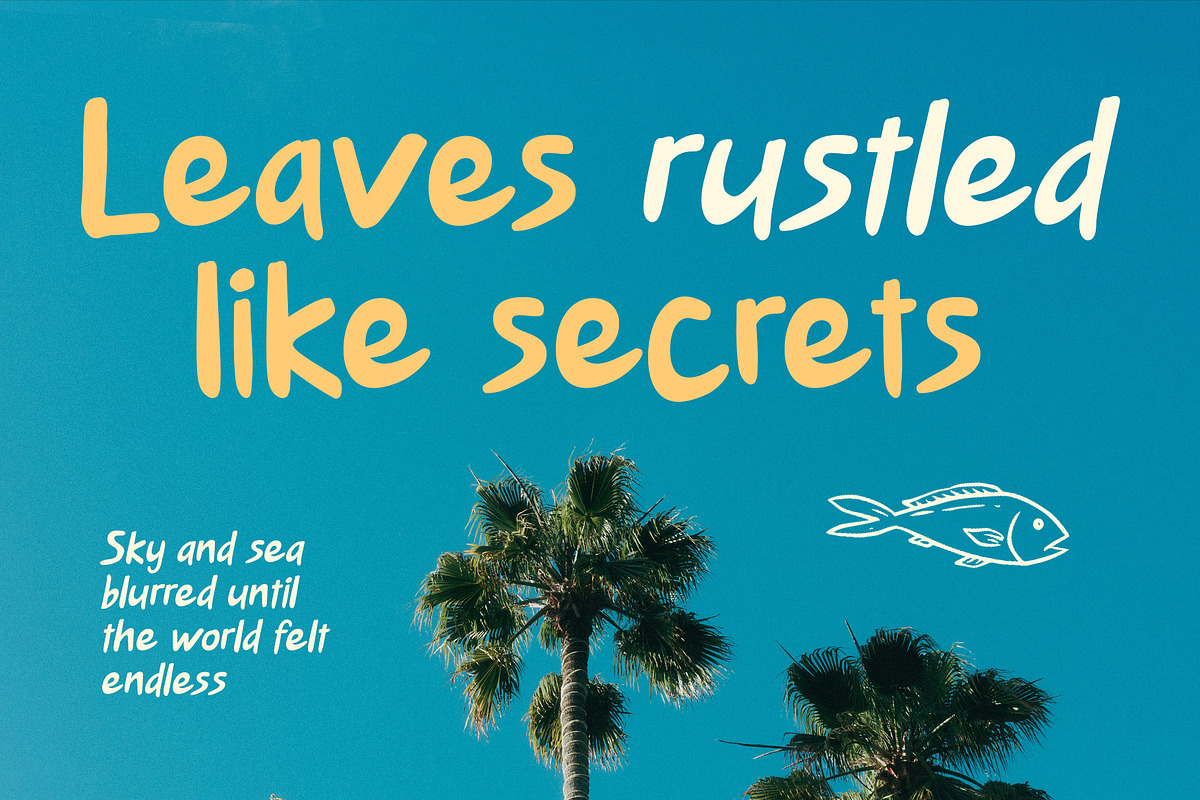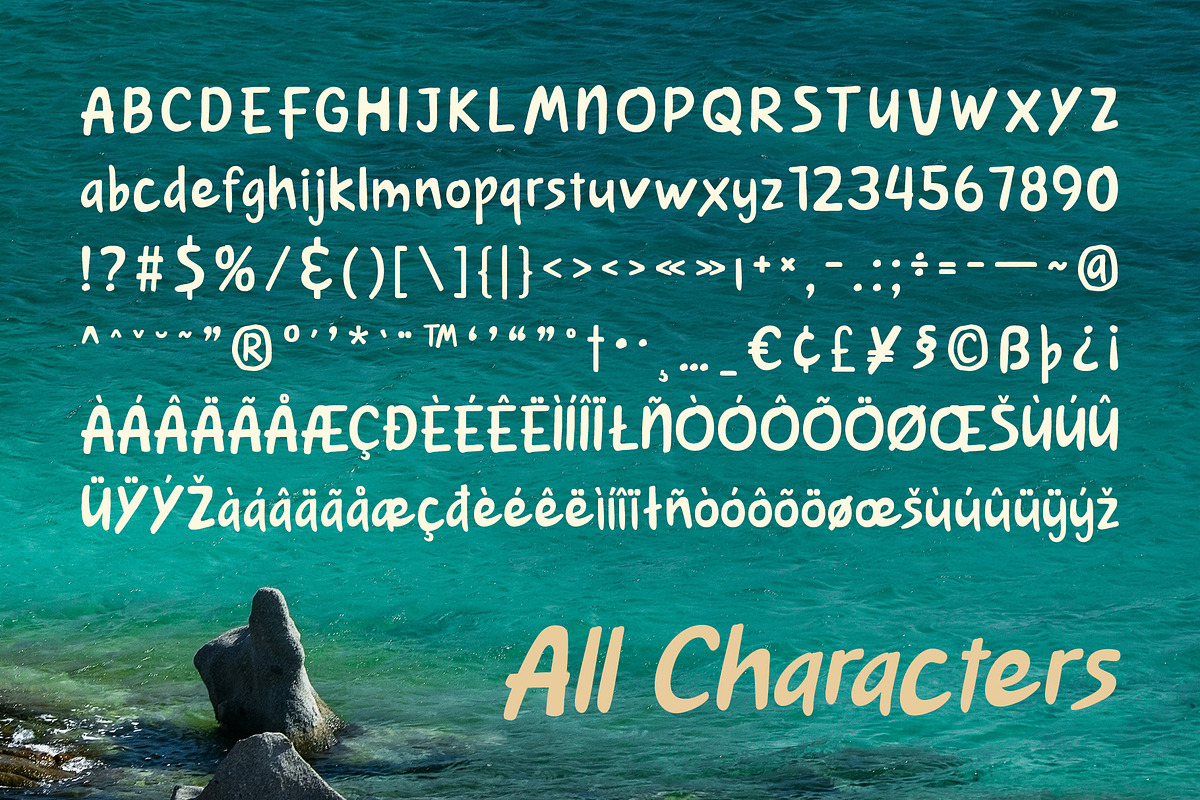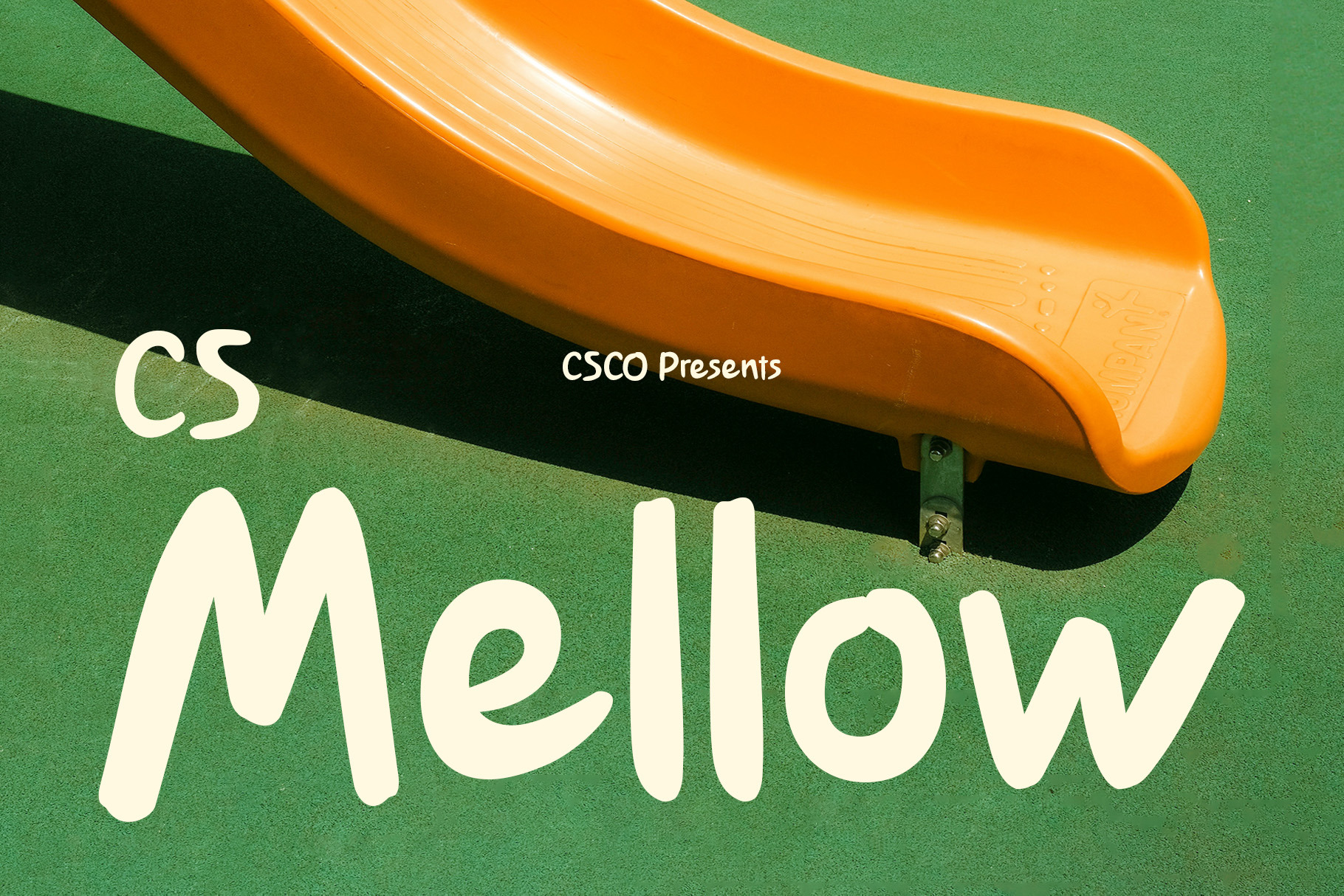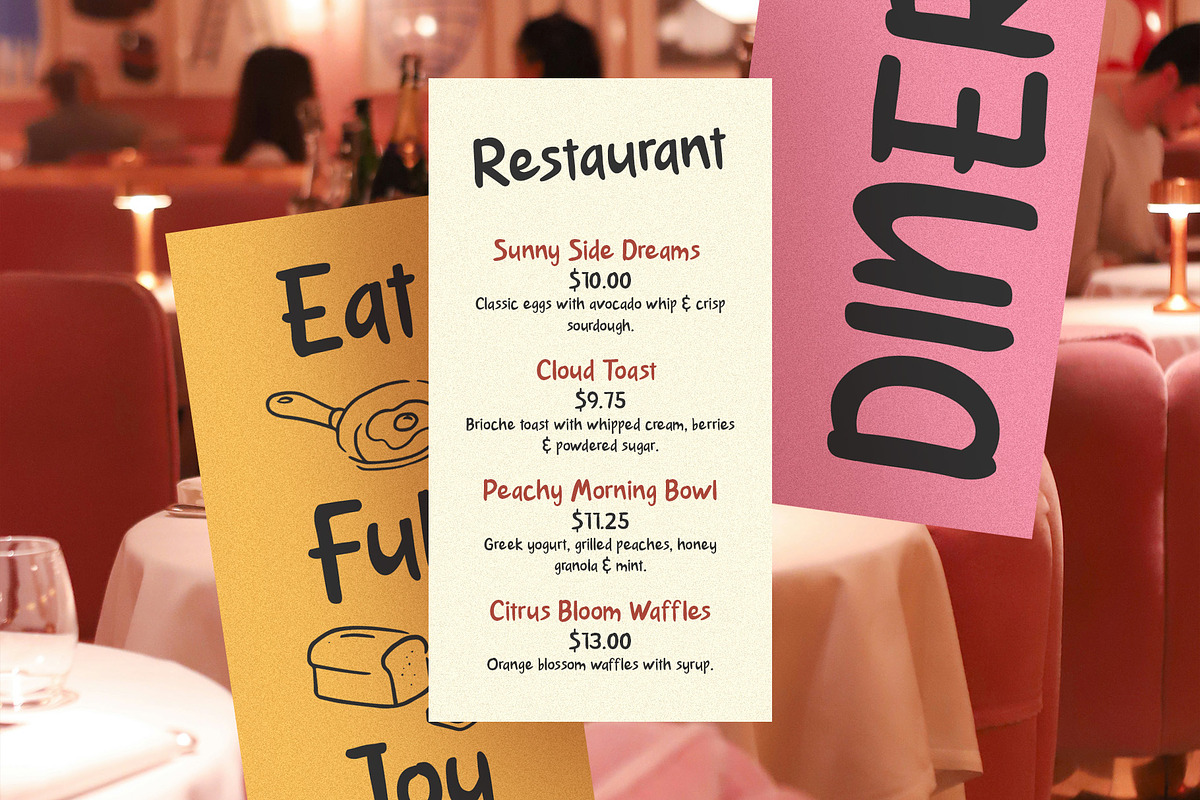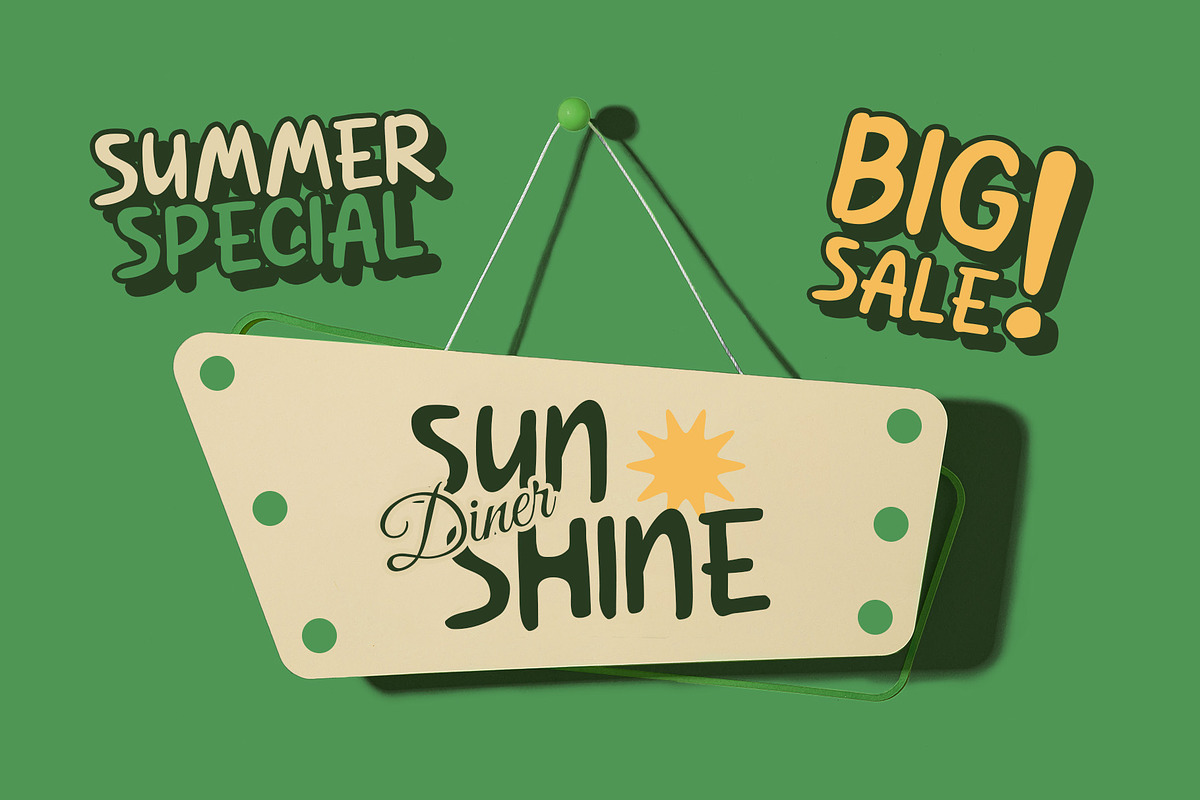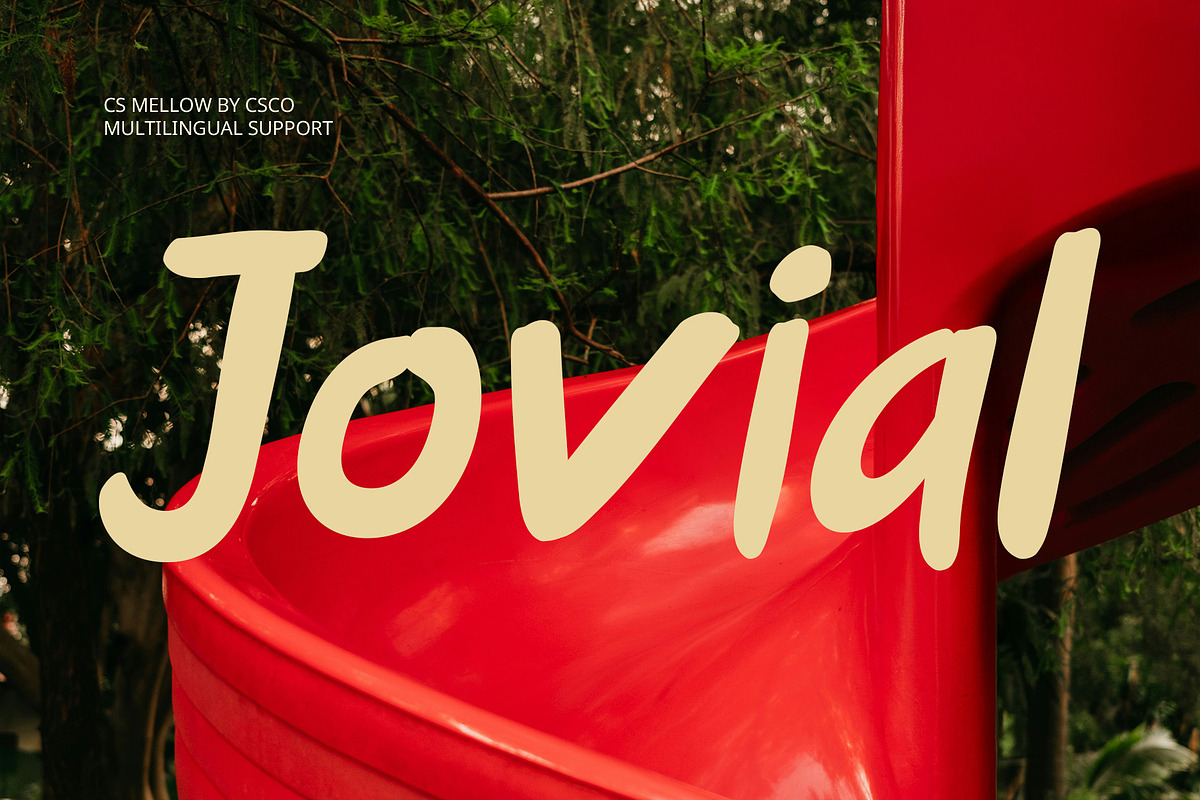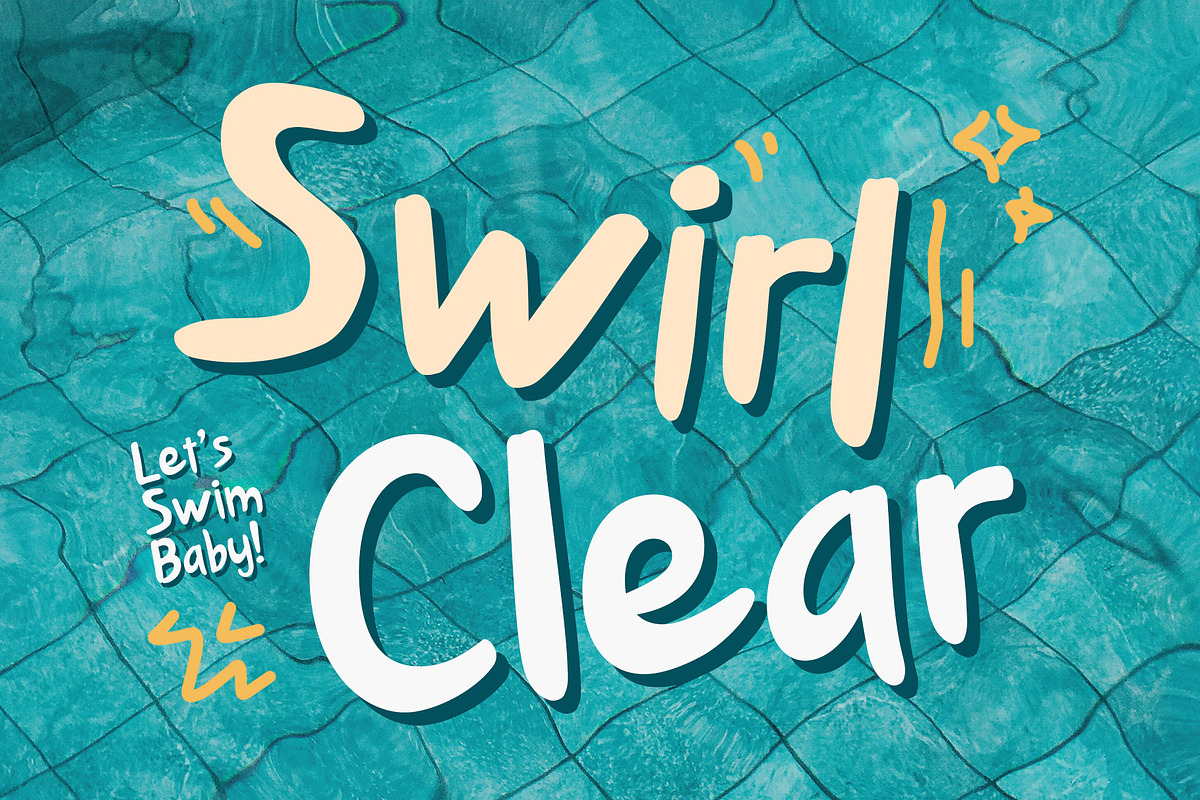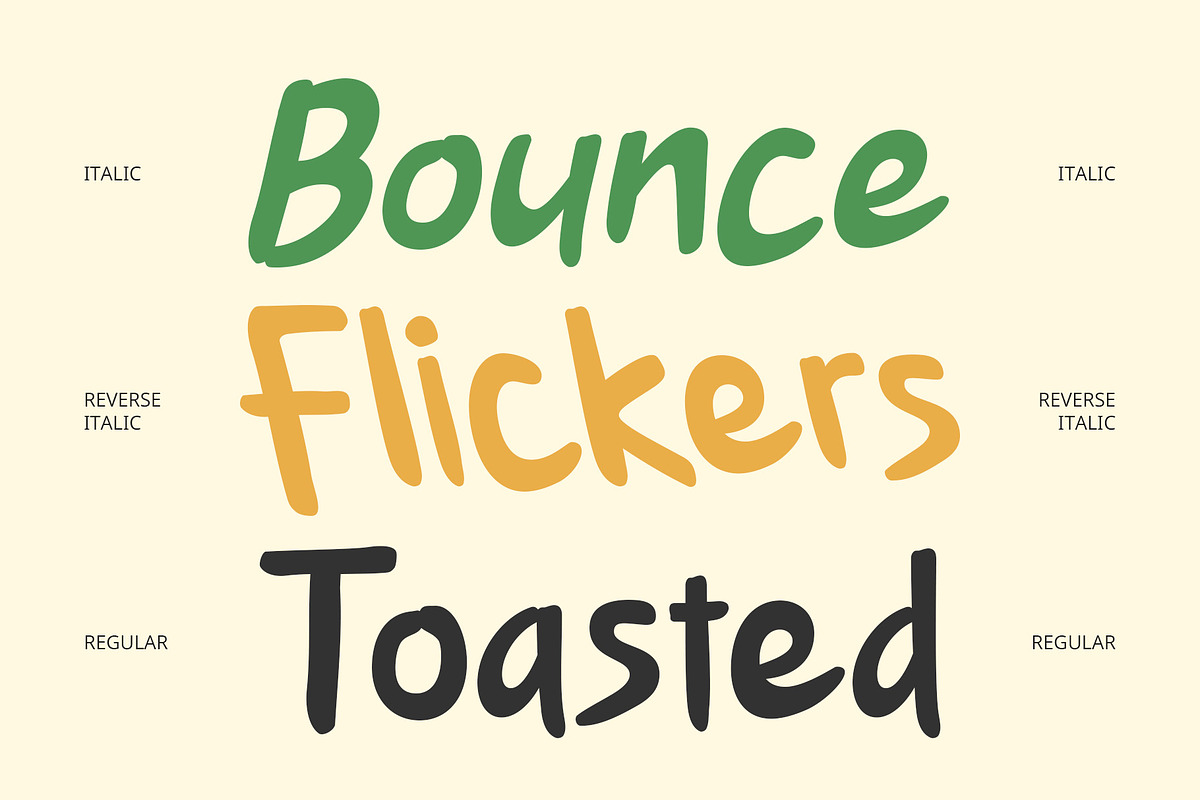
CS Mellow – Fun Font
CS Mellow – Fun Font: Playful Energy with a Modern Handwritten Touch
Cheerful and Expressive Style CS Mellow is a modern display font that combines a clean, contemporary handwritten style with a funky, cheerful vibe. Its fluid and expressive letterforms radiate friendliness and energy, instantly giving any design a lively personality. The organic flow of its letters captures a sense of spontaneity, making it ideal for creative projects that aim to feel fun, lighthearted, and full of personality.
Handwritten Warmth with Modern Precision Each stroke of CS Mellow is crafted to feel natural and approachable while maintaining a neat and modern structure. The result is a balance between casual handwritten charm and professional clarity, ensuring designs remain both stylish and easy to read.
Perfect for Joyful and Creative Projects From posters and packaging to playful branding or social media graphics, CS Mellow shines in projects that aim to highlight joy, warmth, and creativity. Its funky and approachable character makes it especially suitable for designs targeting youthful, energetic, and fun-loving audiences.
Versatile for Fun Visual Expressions CS Mellow adapts effortlessly to a wide range of creative applications. Whether used as a bold headline, a quirky logotype, or an accent in vibrant compositions, it brings positivity and charm to every project. Its playful yet refined look ensures it stands out while keeping a modern and professional edge.
- CS Mellow Regular
- CS Mellow Italic
- CS Mellow Reverse Italic